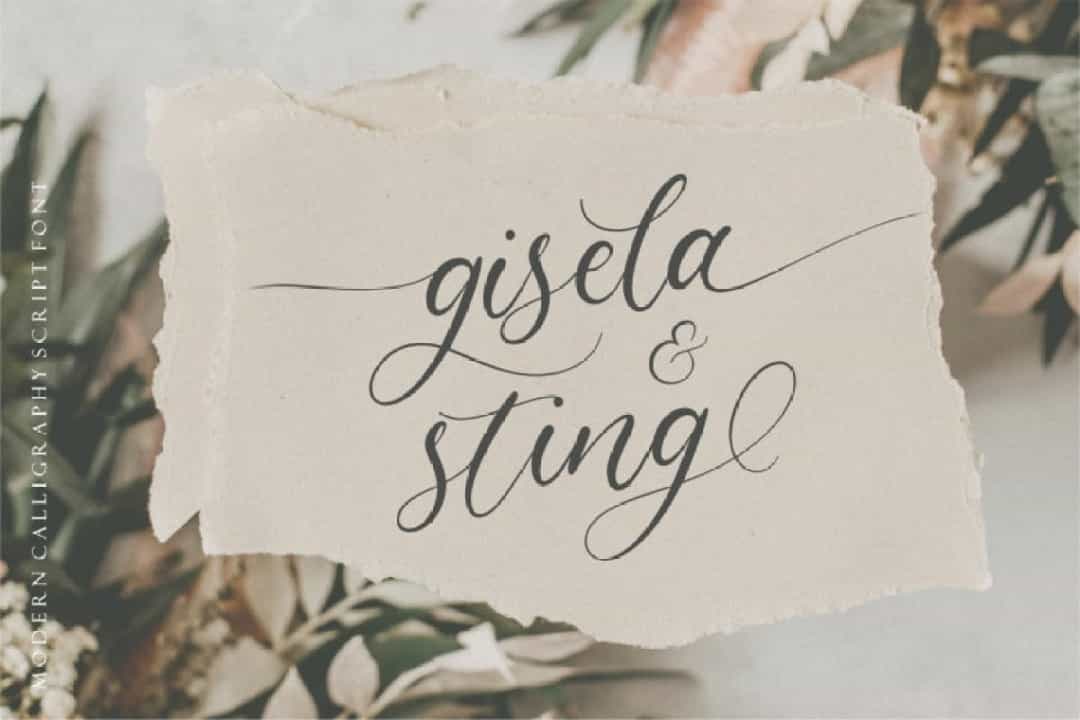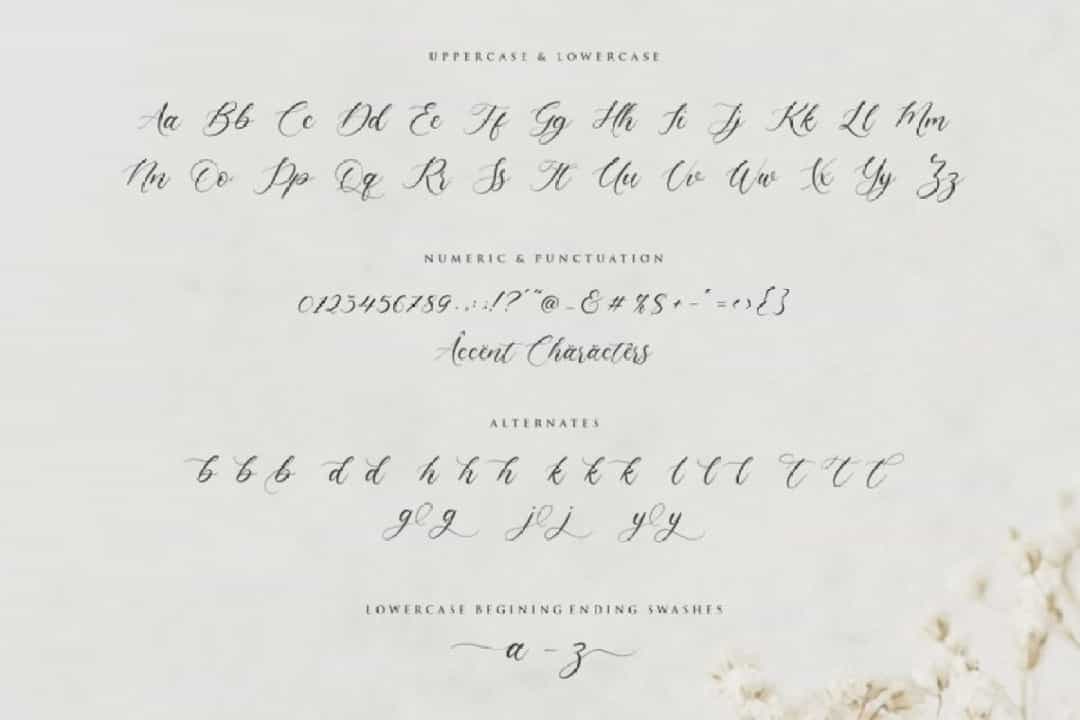
Claytona is a contemporary script font, perfect for those who seek for the fun and relaxed concept with the touch of sophistication. With natural looking ligatures that are easily hidden, PUA encoded font gives you instant access to all swashes and glyphs!